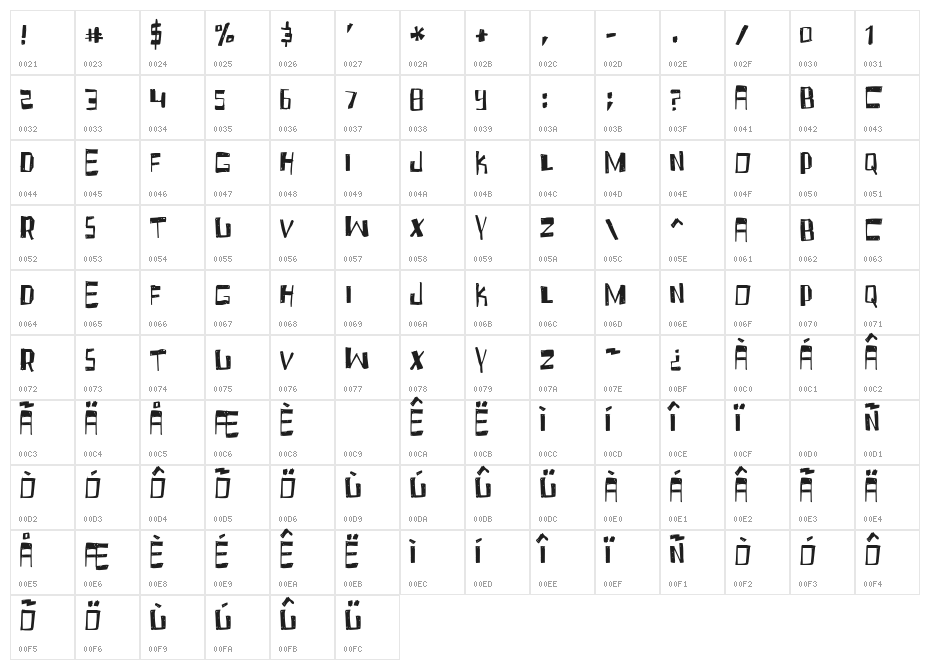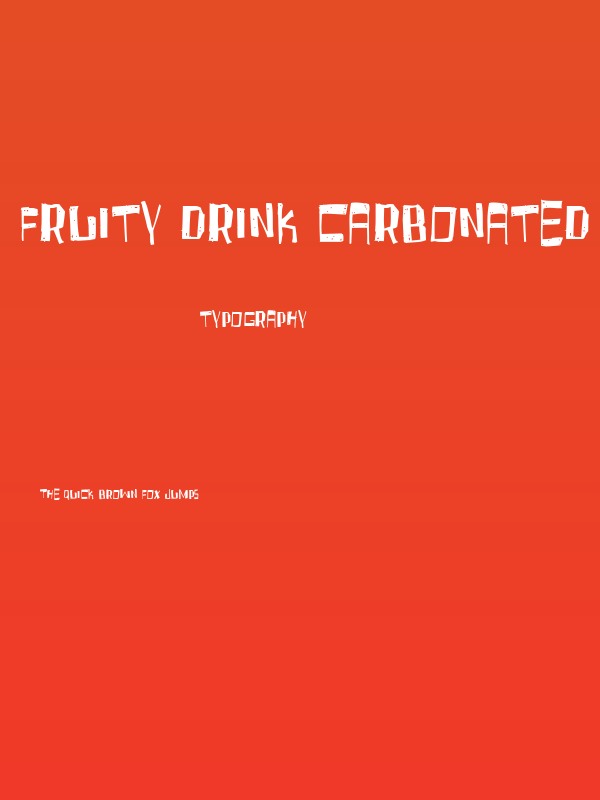
Fruity Drink Carbonated Font
Fruity Drink Carbonated Description
This font features a playful and quirky design with a hand-drawn aesthetic. The characters are bold and irregular, with varying stroke thicknesses that give it a dynamic and energetic feel. The uppercase and lowercase letters maintain a consistent style, characterized by their uneven edges and slight slant. The numbers and special characters follow the same whimsical design, adding to the font's overall charm. This font is ideal for projects that require a fun and informal touch, such as children's books, posters, or creative branding. Its unique style captures attention and conveys a sense of creativity and spontaneity.
| Overall Style | Playful, Quirky, Hand-drawn |
| Use Case | Headlines, Posters, Creative Branding |
| Proposed Projects | Ideal for children's books, playful posters, creative branding, and informal invitations. |